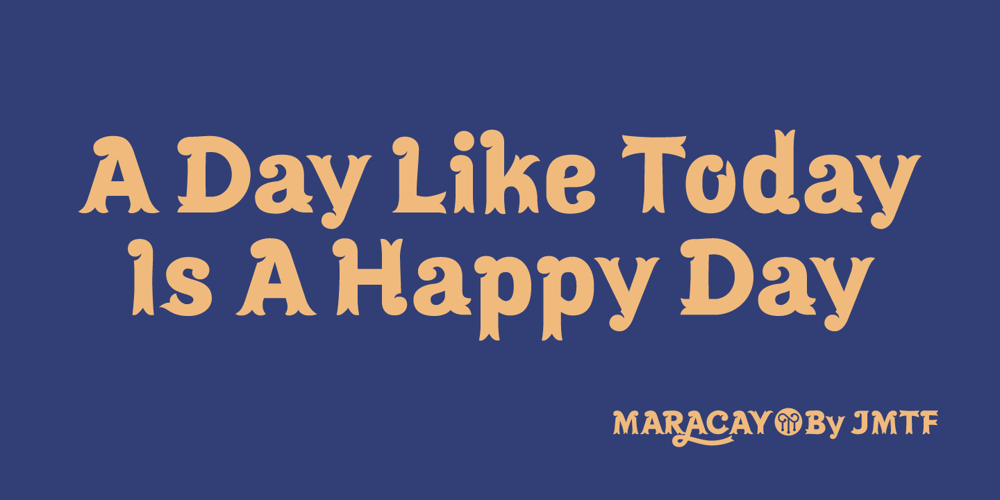
Maracay Font Family was designed by John Moore and published by John Moore Type Foundry. Maracay contains 9 styles and family package options. Maracay is a tropical typeface that works for texts or headlines, mainly as a display font and designed to work in layers of overlapping texts. Maracay is a unique design with nine fonts based creating a particular style of design and the combination of a couple different looks can be obtained eighteen. Thanks to the versatility of coloring matter, together form a coherent and attractive ideal for a variety of different projects such as invitations, menus, magazines, brochures, packaging, design, etc. Maracay provides alternate characters, swash, ligatures, icons, ordinals and fractions. Maracay has 4 shape styles : Regular Maracay base as essential as Tooled variations of brightness or wood with the appearance of a WoodType vintage wooden texture . Inner font as serves as Light or inner contour of the foregoing. Follow three fonts contouring as Outline, Shape and Umbra as a 3D projection. For decorative purposes Shape that there is a textured lines or Half as a split in the top half letter. Maracay has been carefully studied to provide the best combinations of the most of pairs and trios of glyphos avoiding undesirable extensions between ornate characters through its Opentype programming.